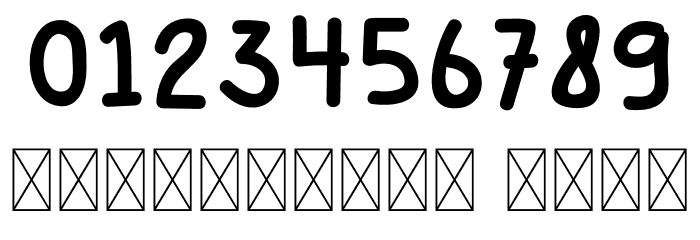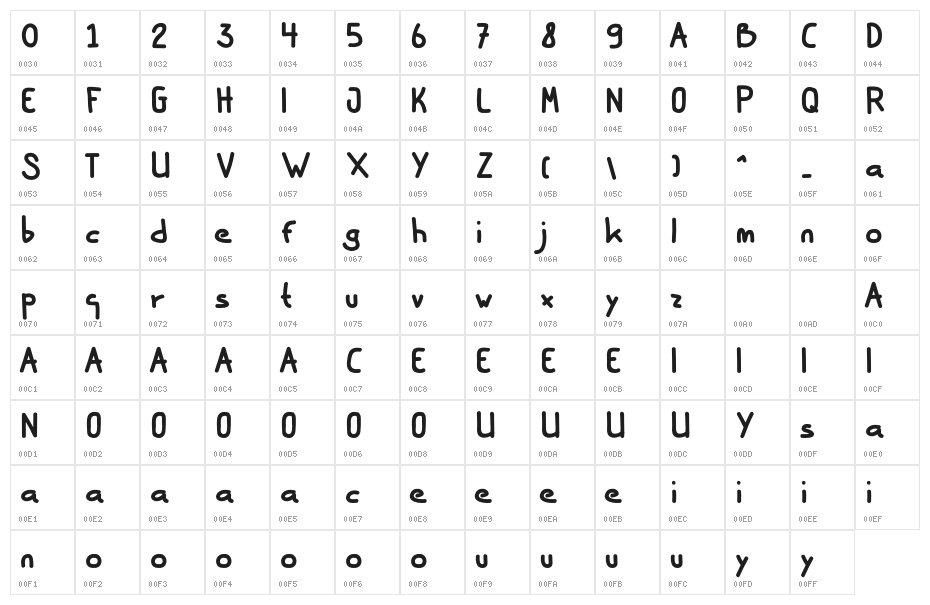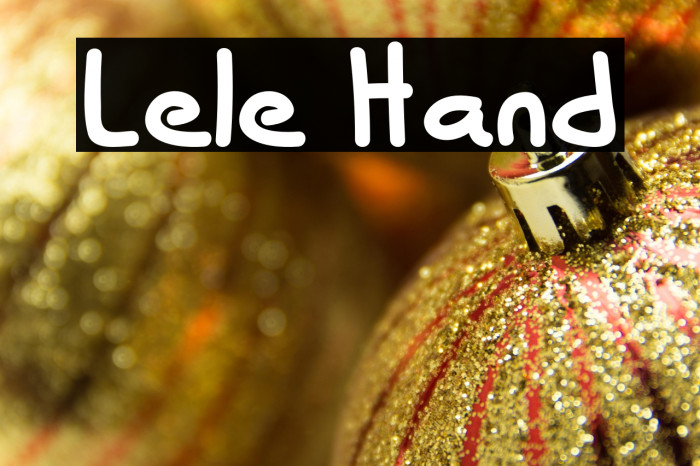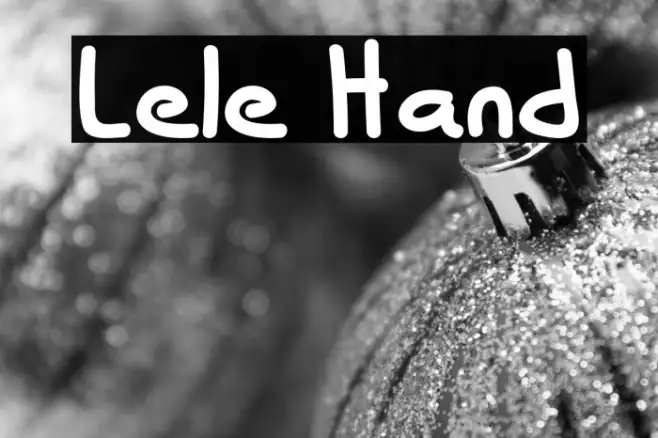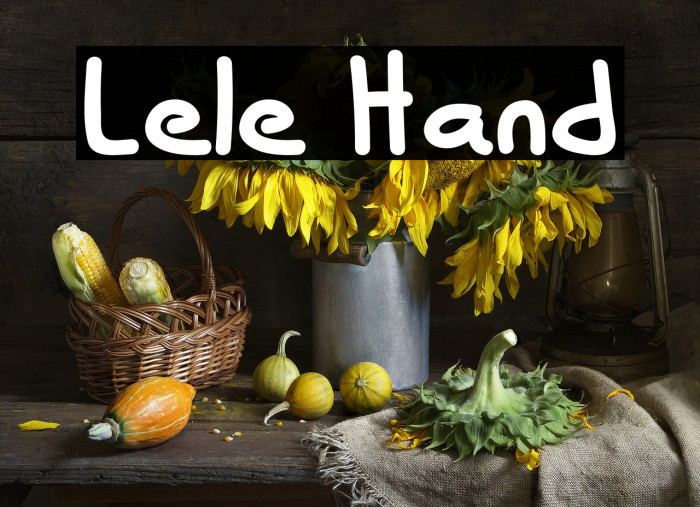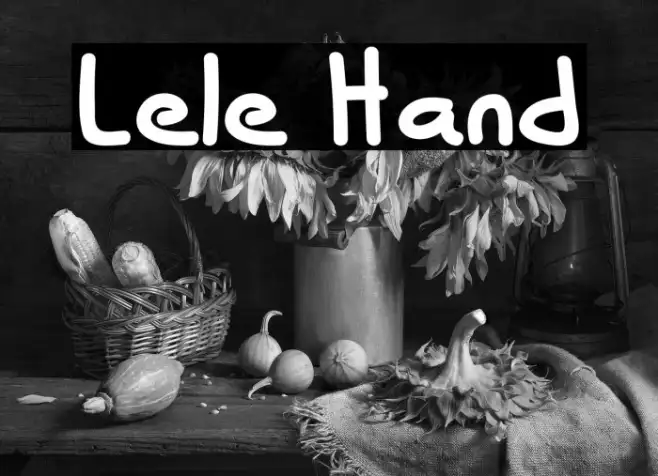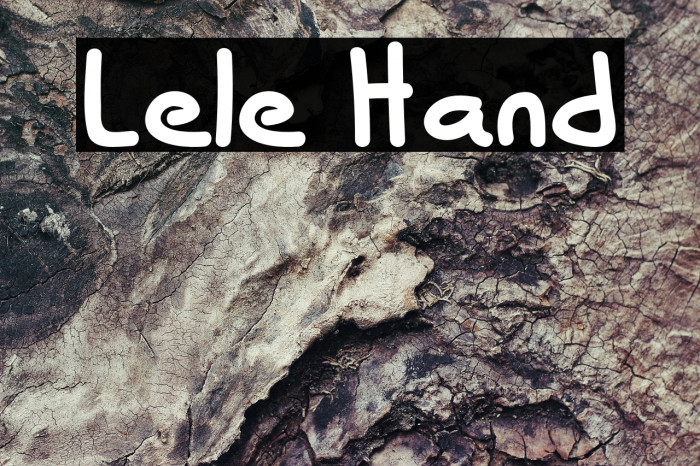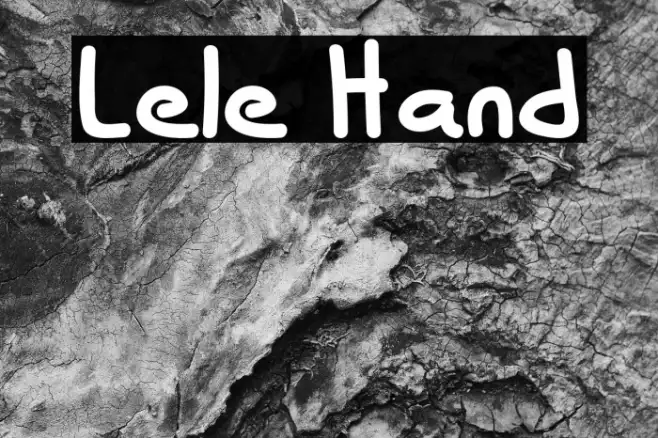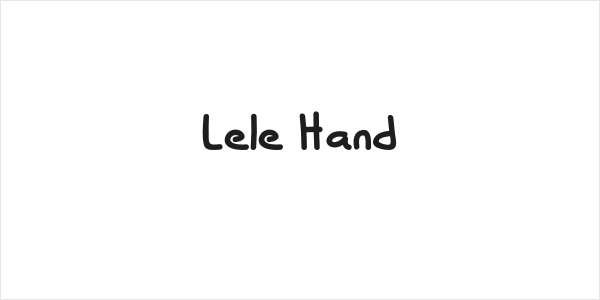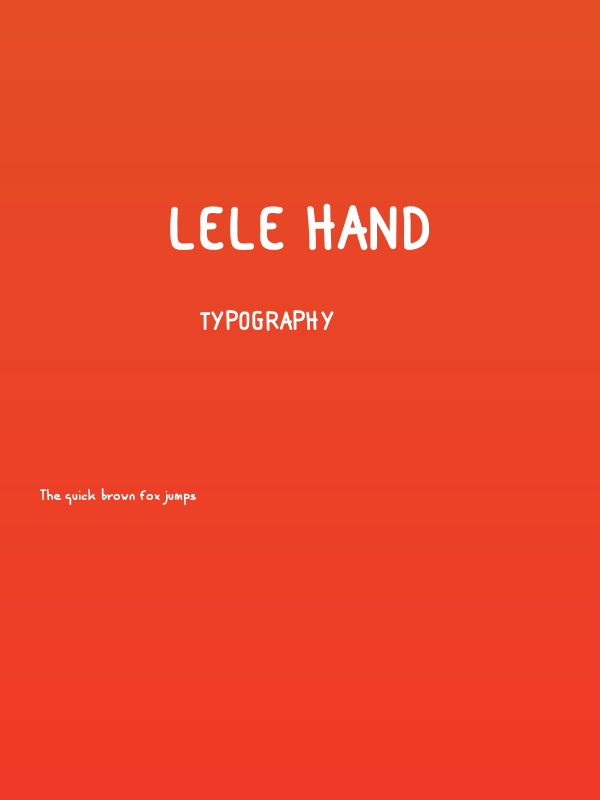
Lele Hand Font
Lele Hand Description
This font features a playful and casual handwritten style, characterized by its rounded and slightly irregular letterforms. The uppercase and lowercase letters maintain a consistent thickness, giving it a uniform appearance. The numbers are bold and easy to read, matching the overall style of the alphabet. The font's whimsical nature makes it suitable for informal and creative projects. It lacks any sharp edges, contributing to its friendly and approachable feel. The spacing between characters is normal, ensuring readability while maintaining its unique charm.
| Proposed Projects | Ideal for children's books, greeting cards, playful branding, and informal invitations. |